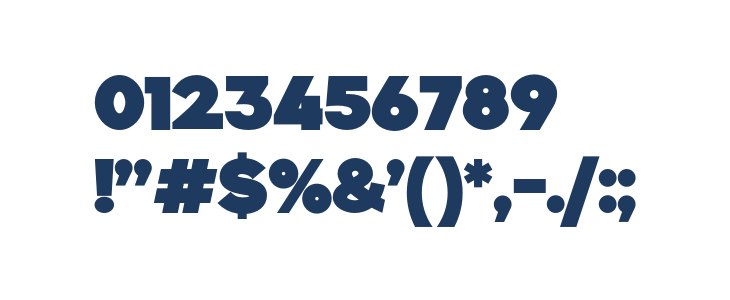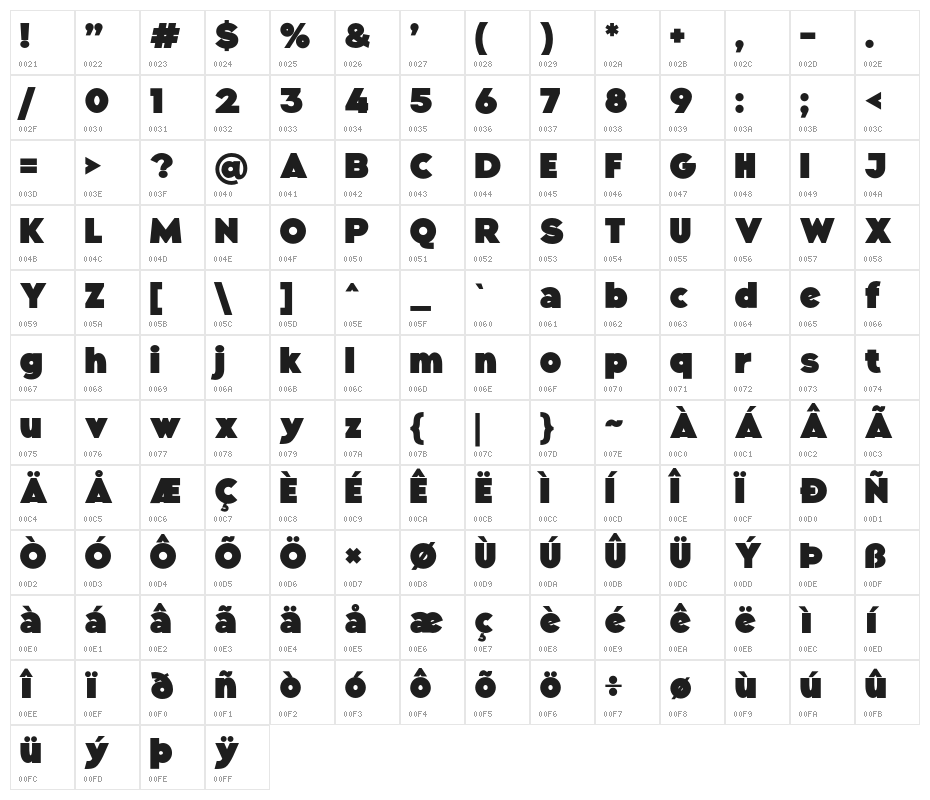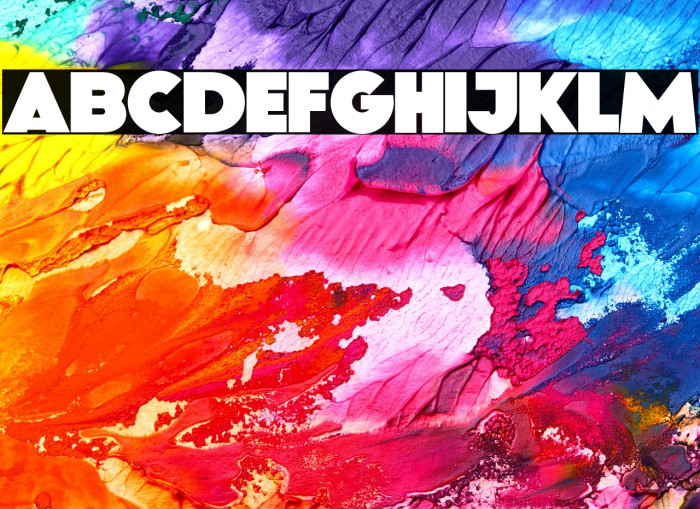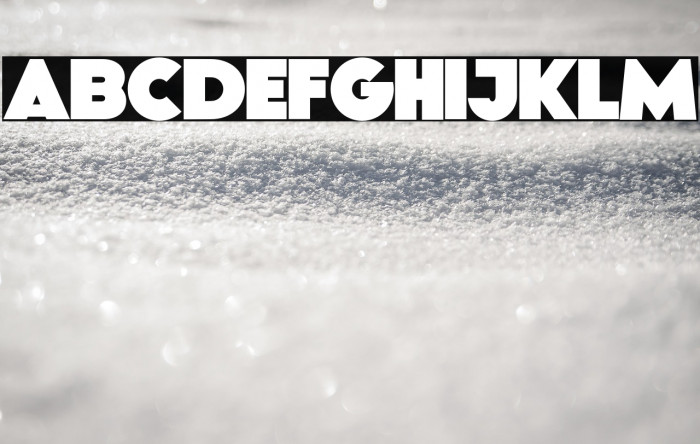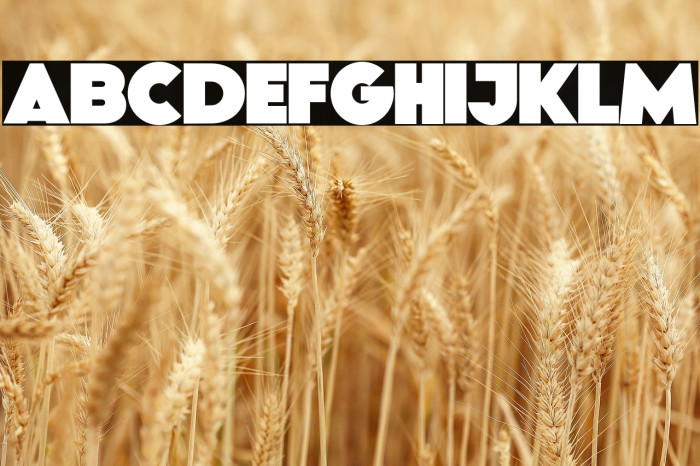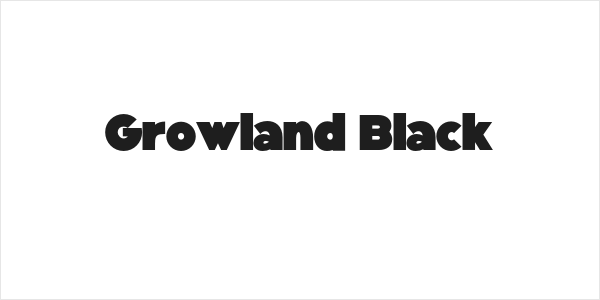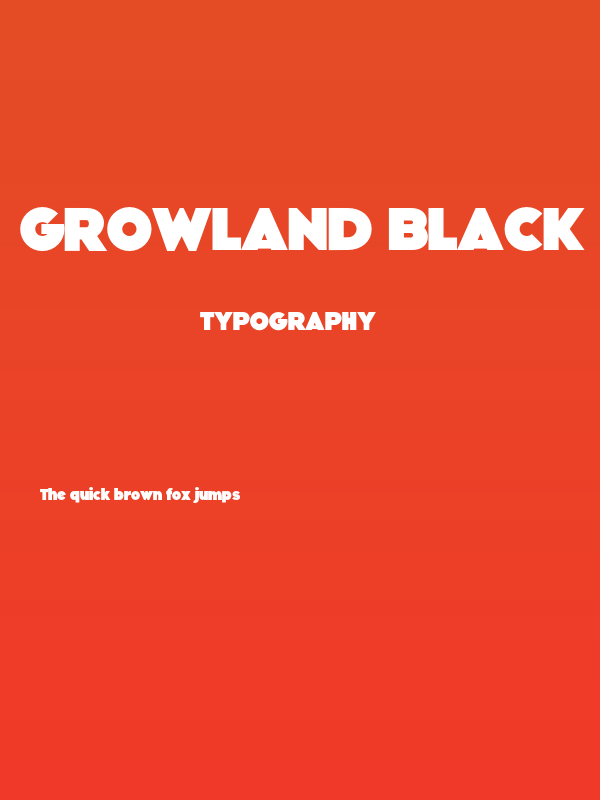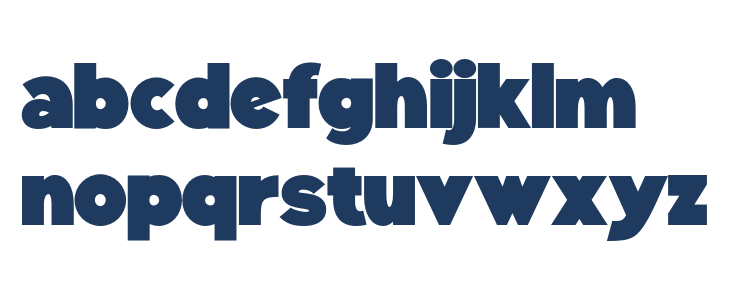
Growland Black Font
Growland Black Description
This font features bold, geometric letterforms with a strong presence. The characters are constructed with thick strokes and minimal contrast, creating a powerful and modern aesthetic. The uppercase and lowercase letters maintain a consistent weight, contributing to a cohesive look. The numerals and special characters are equally bold, ensuring uniformity across all text elements. The overall design is clean and impactful, making it suitable for attention-grabbing applications.